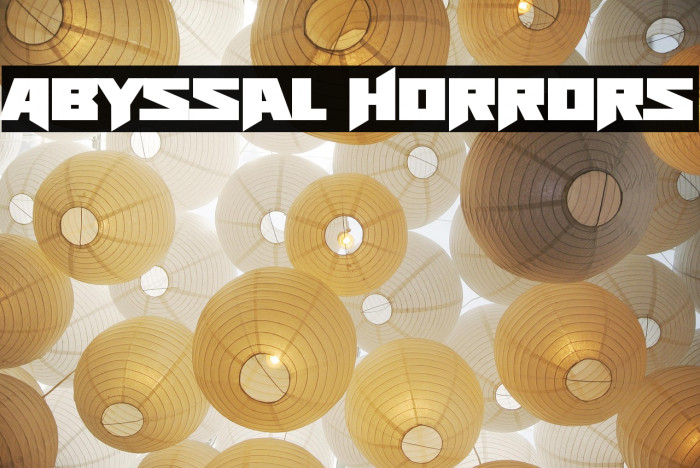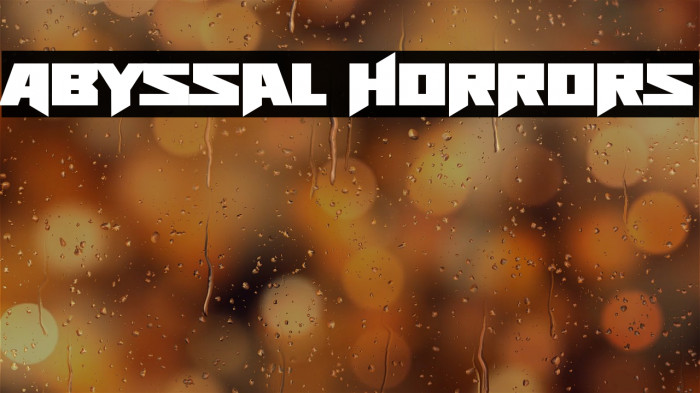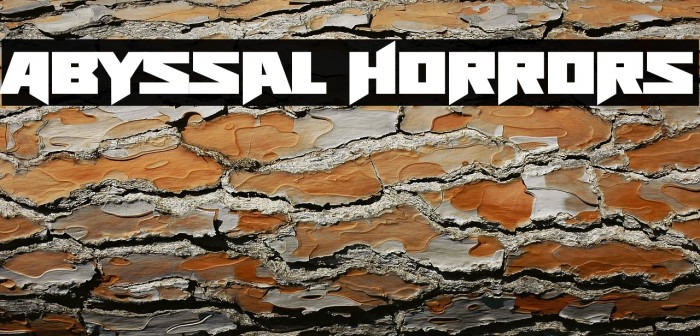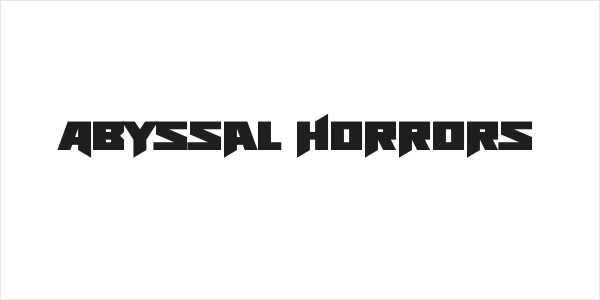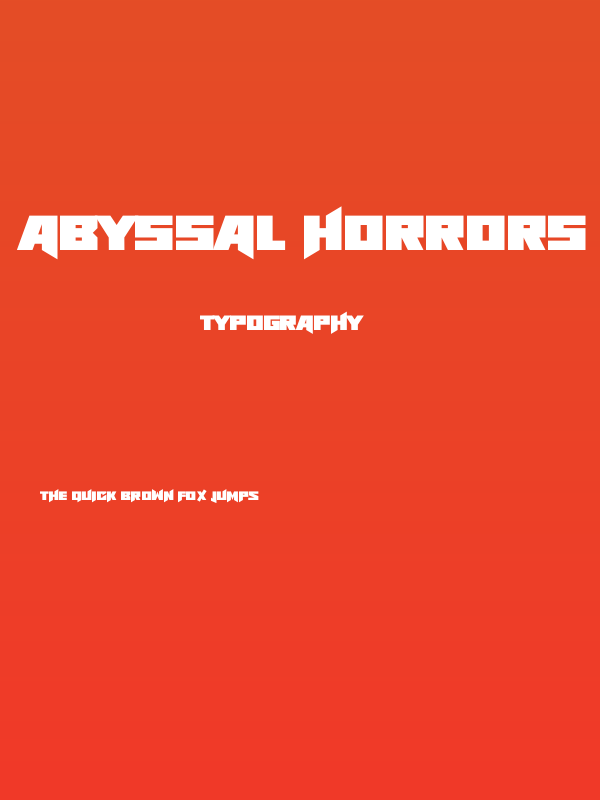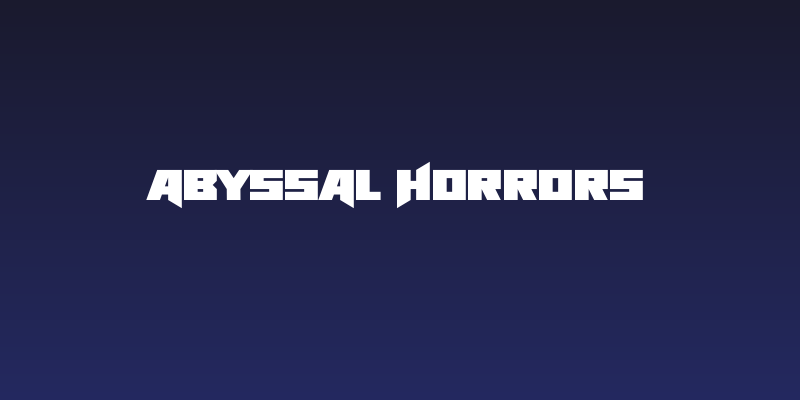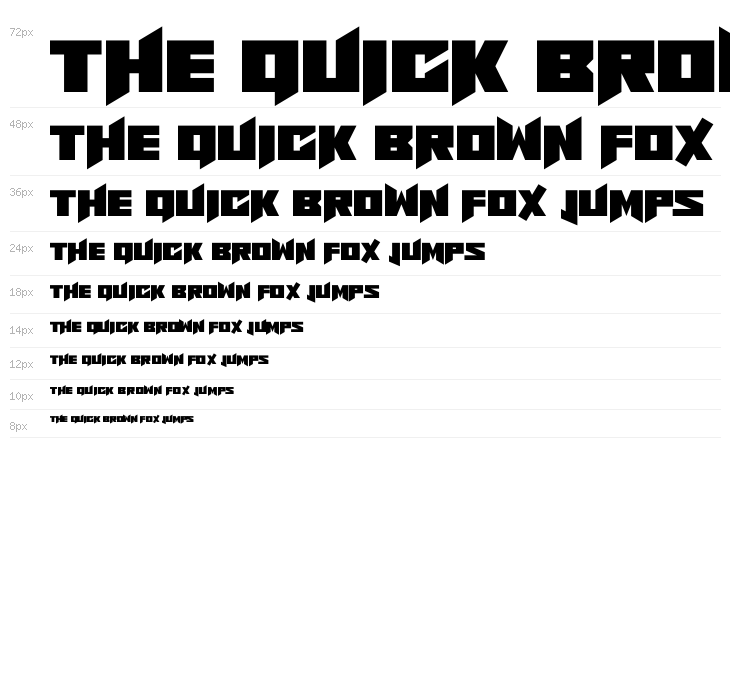
Abyssal Horrors Font
Abyssal Horrors Description
This font features a bold, angular design with sharp edges and a geometric structure, giving it a distinctly modern and aggressive appearance. The uppercase letters are particularly striking, with exaggerated angles and a blocky form that commands attention. The lowercase letters maintain the same boldness, ensuring consistency throughout the typeface. Numbers and special characters are equally robust, making them suitable for impactful displays. The font's unique style is ideal for projects that require a strong visual presence, such as posters, video game titles, or branding for edgy products.
| Proposed Projects | Ideal for video game titles, posters, and edgy branding projects. |